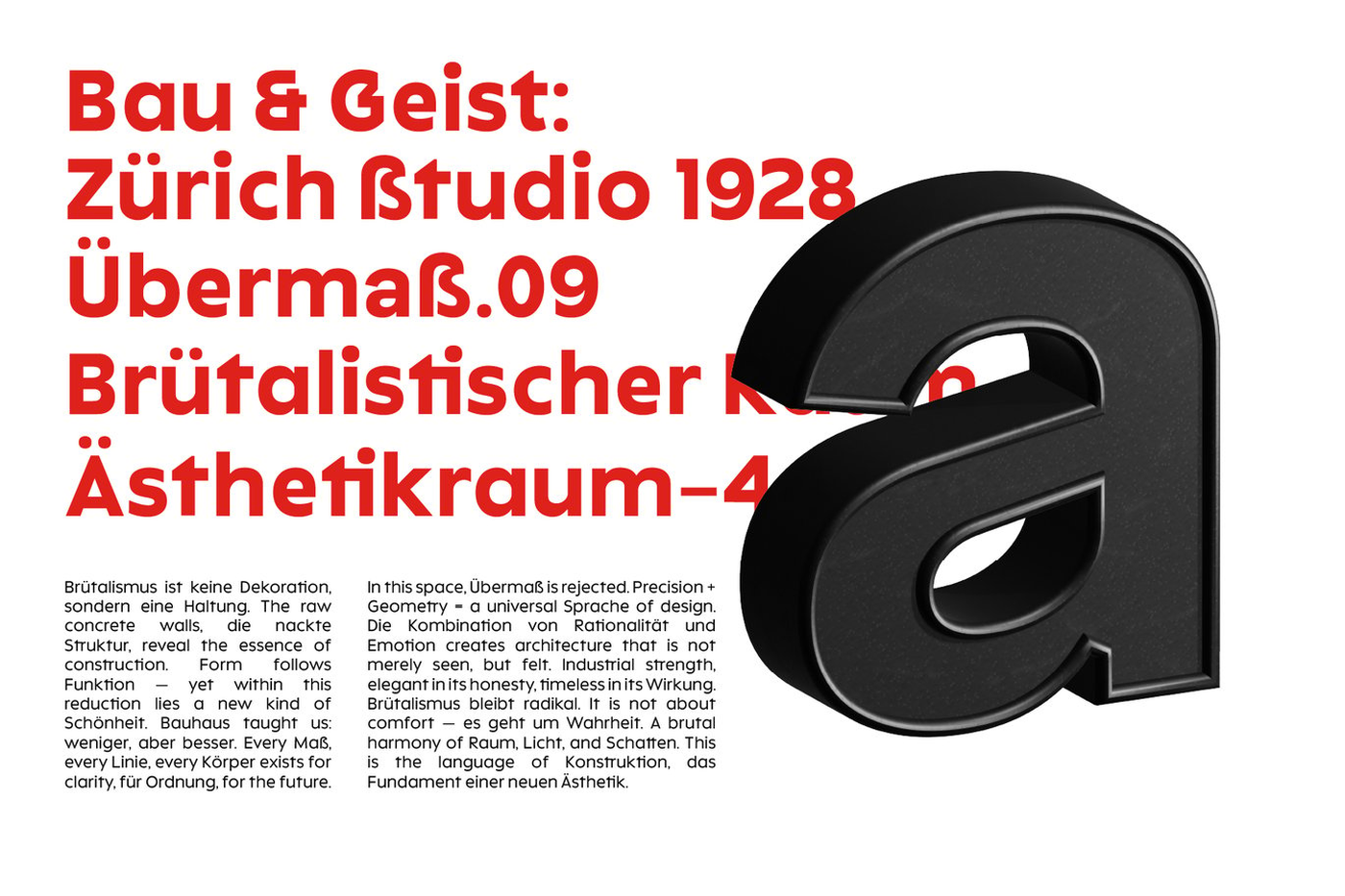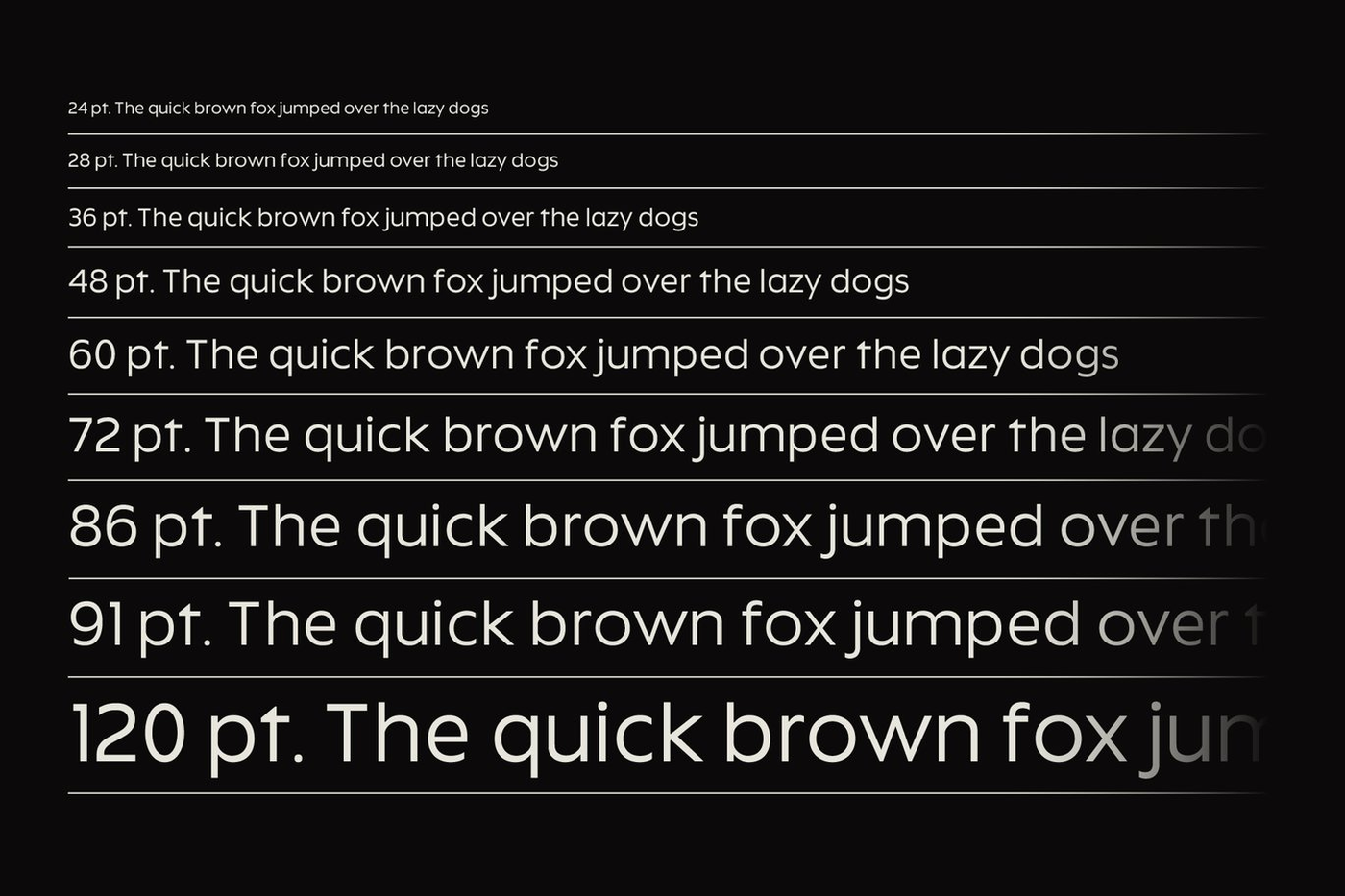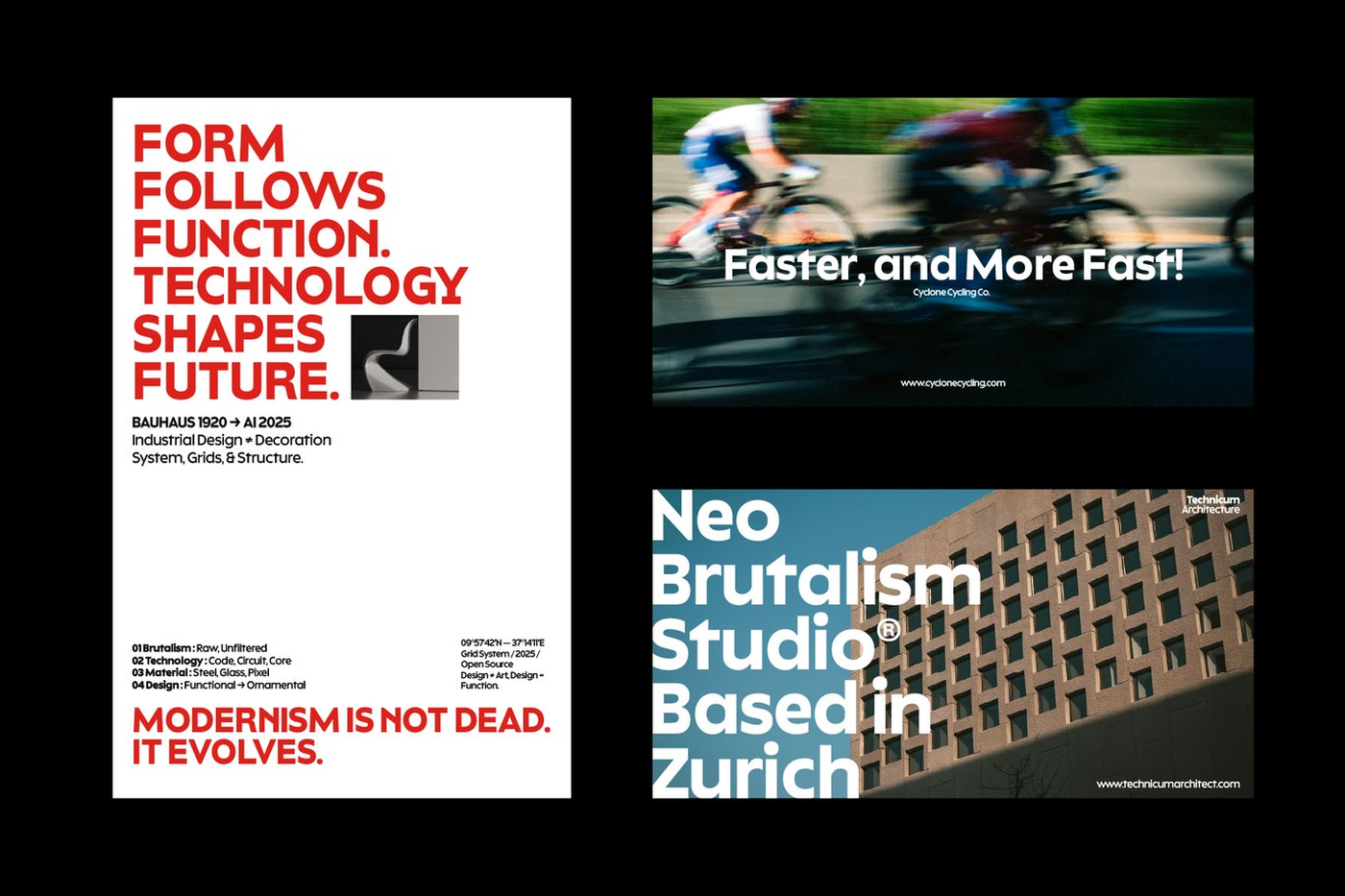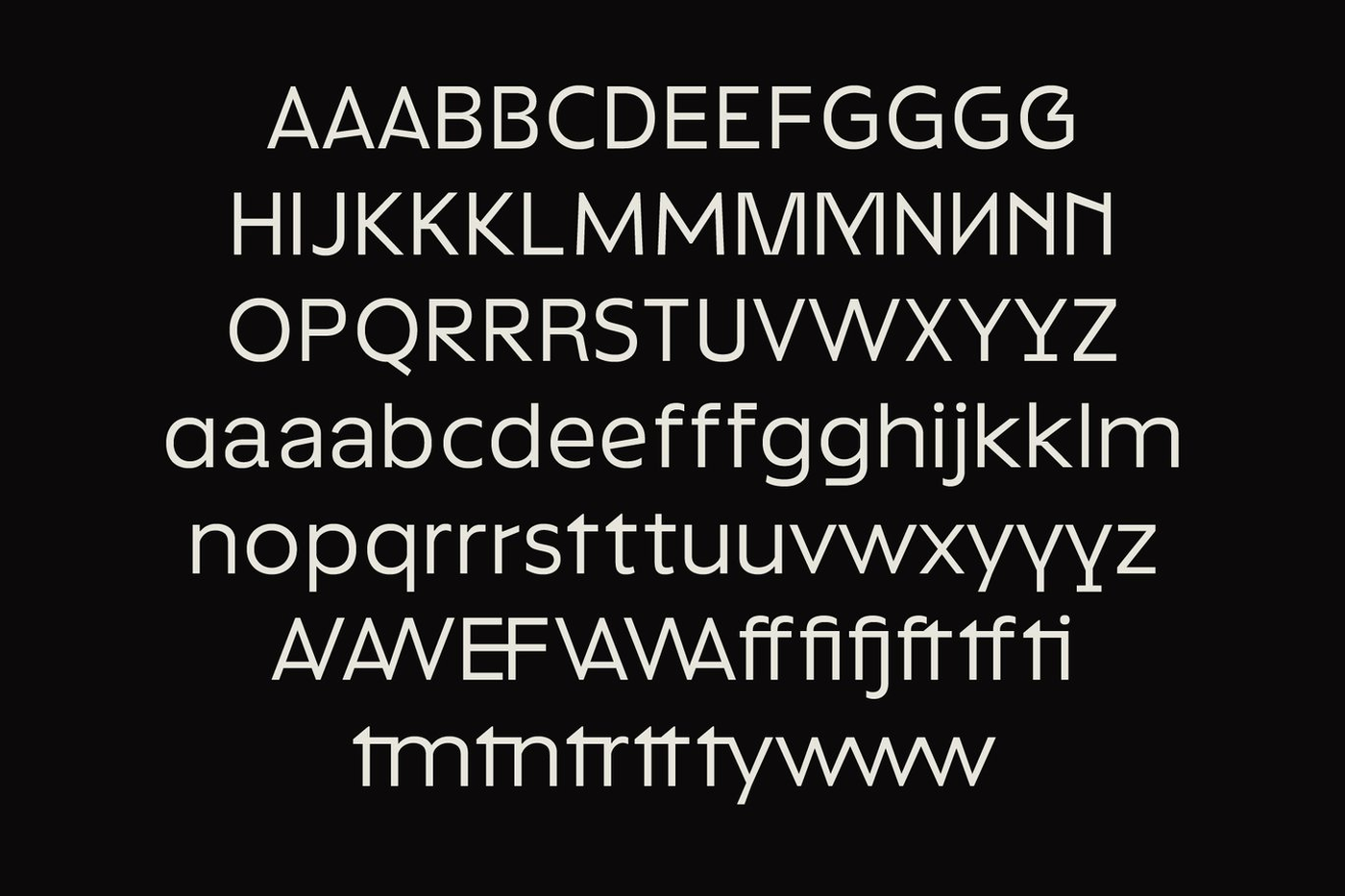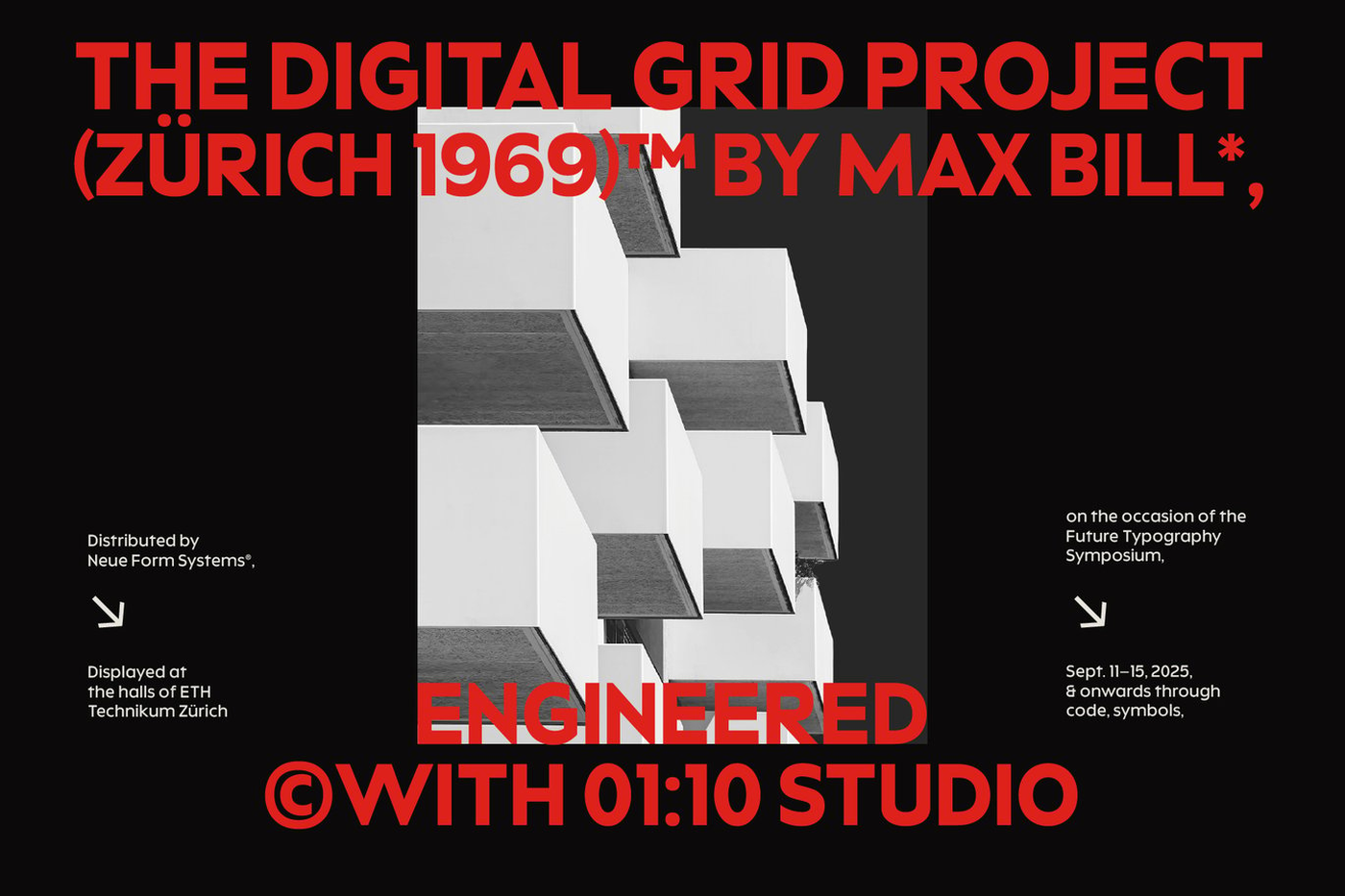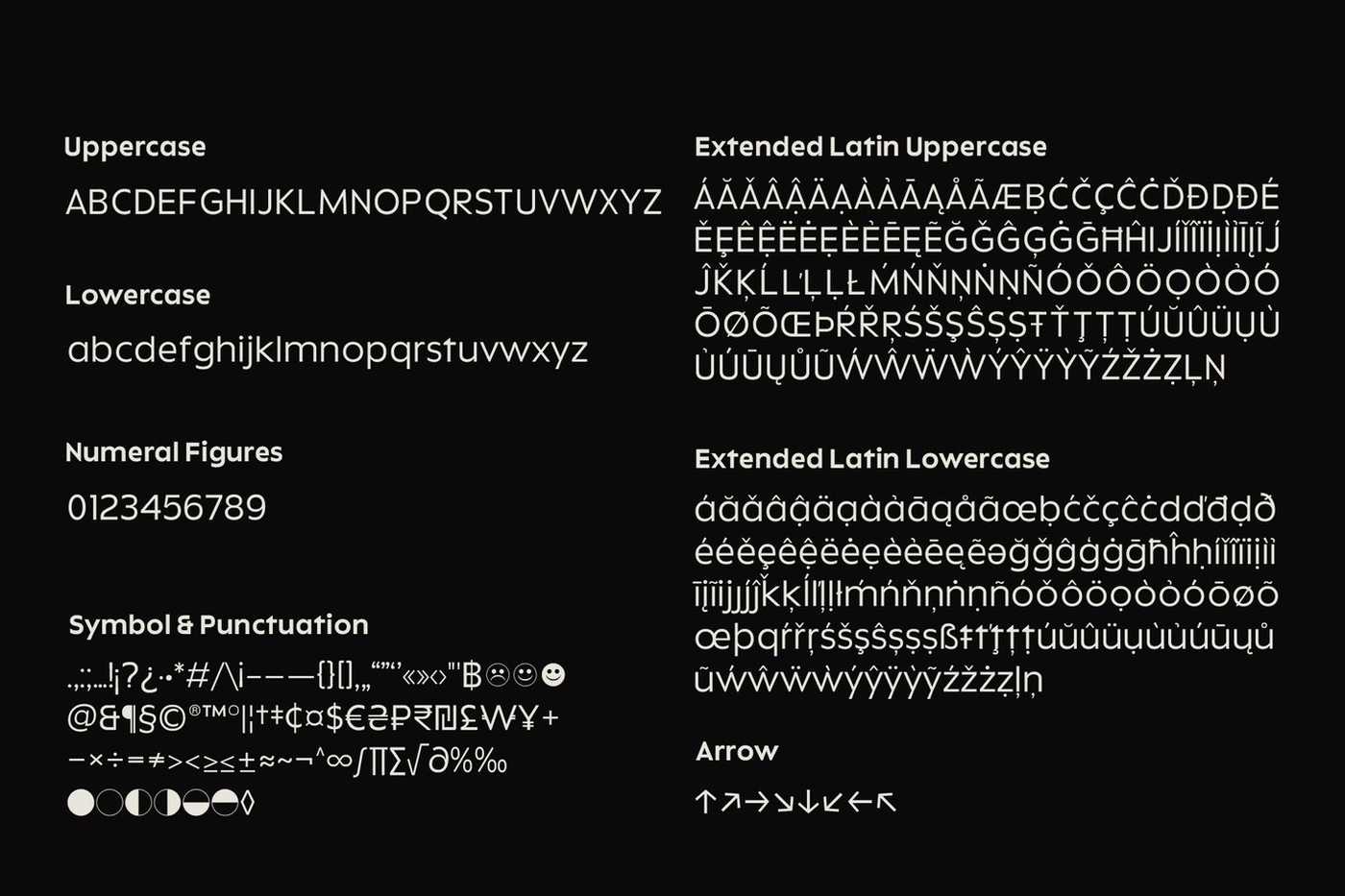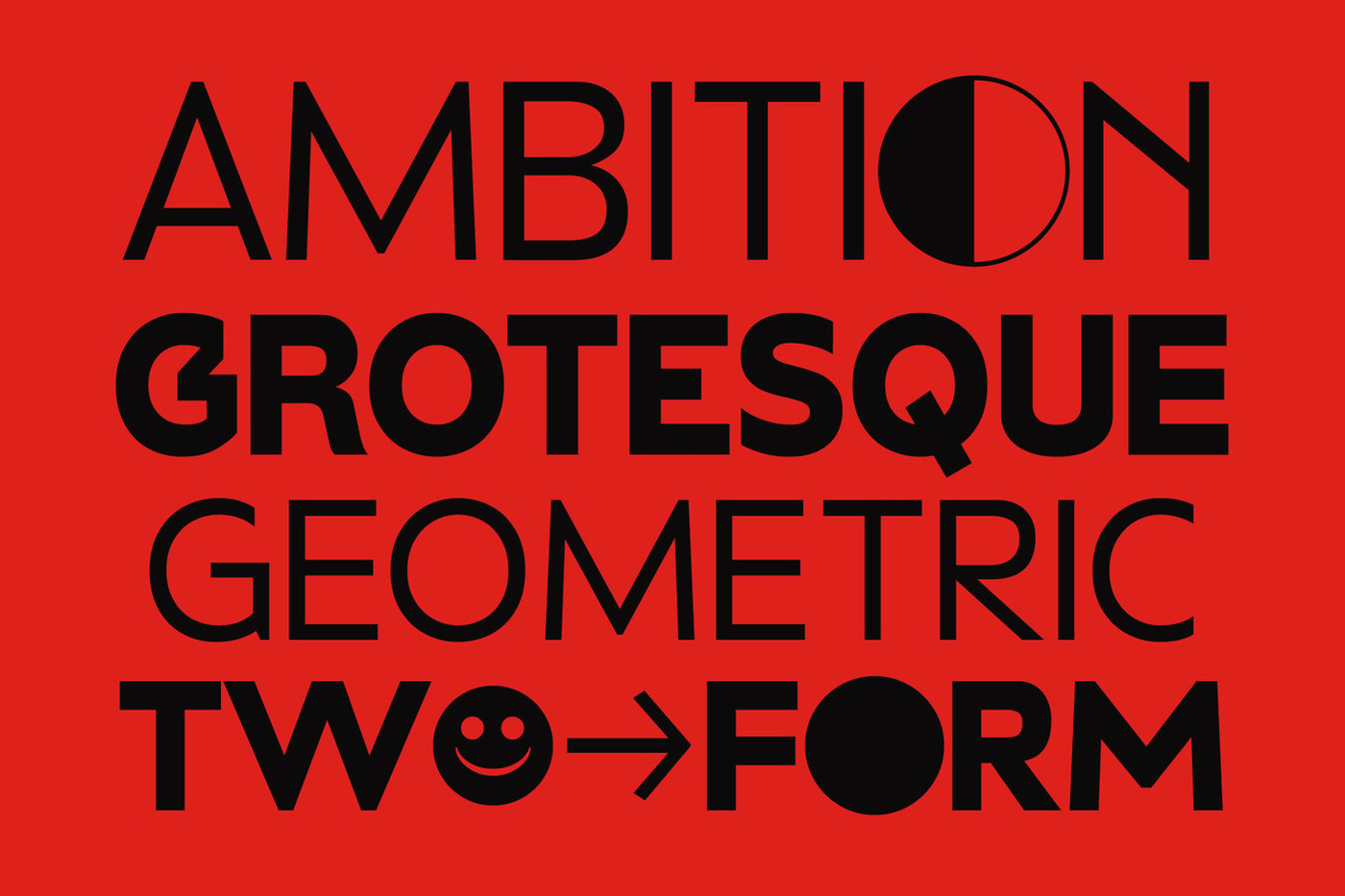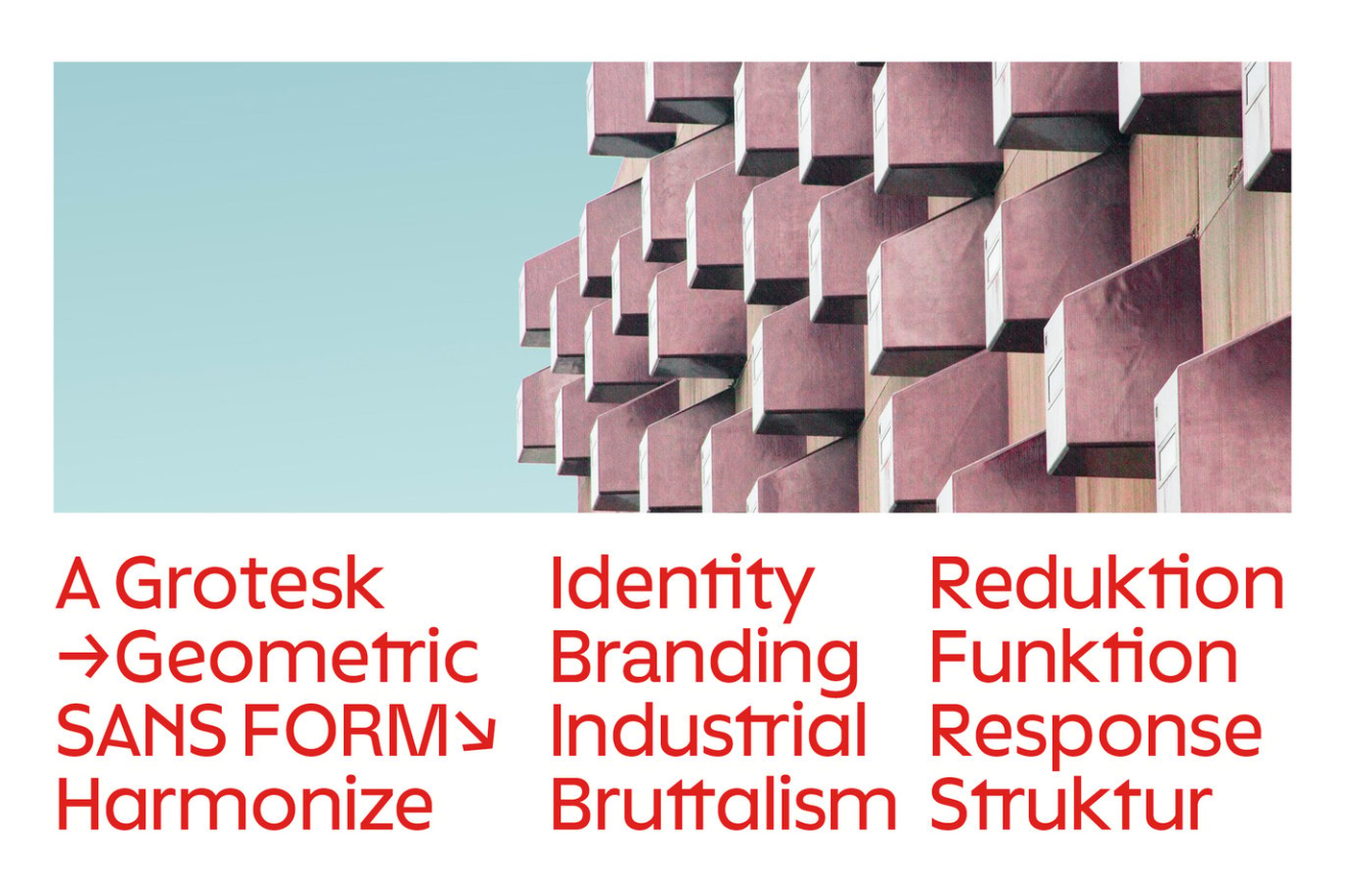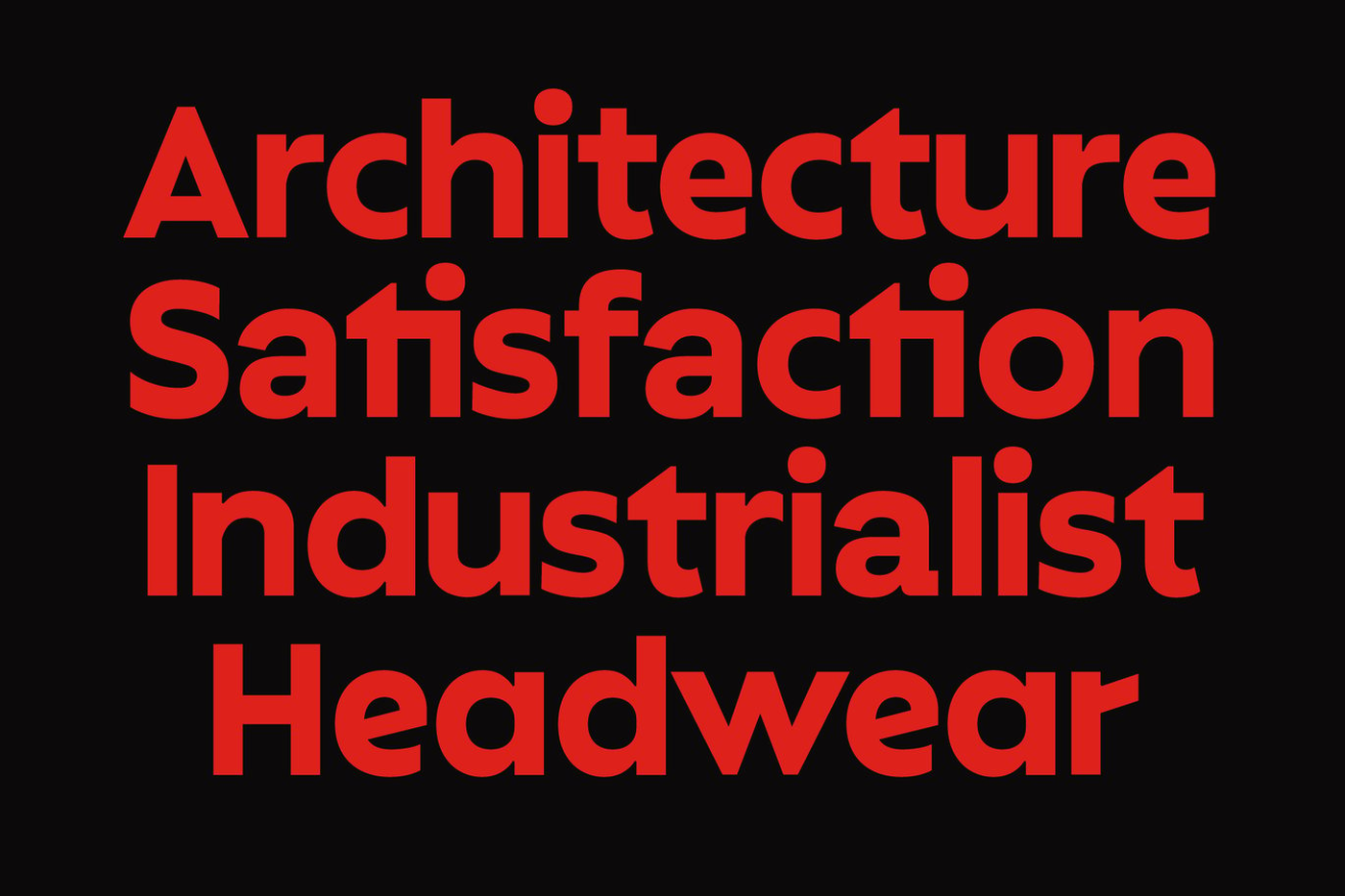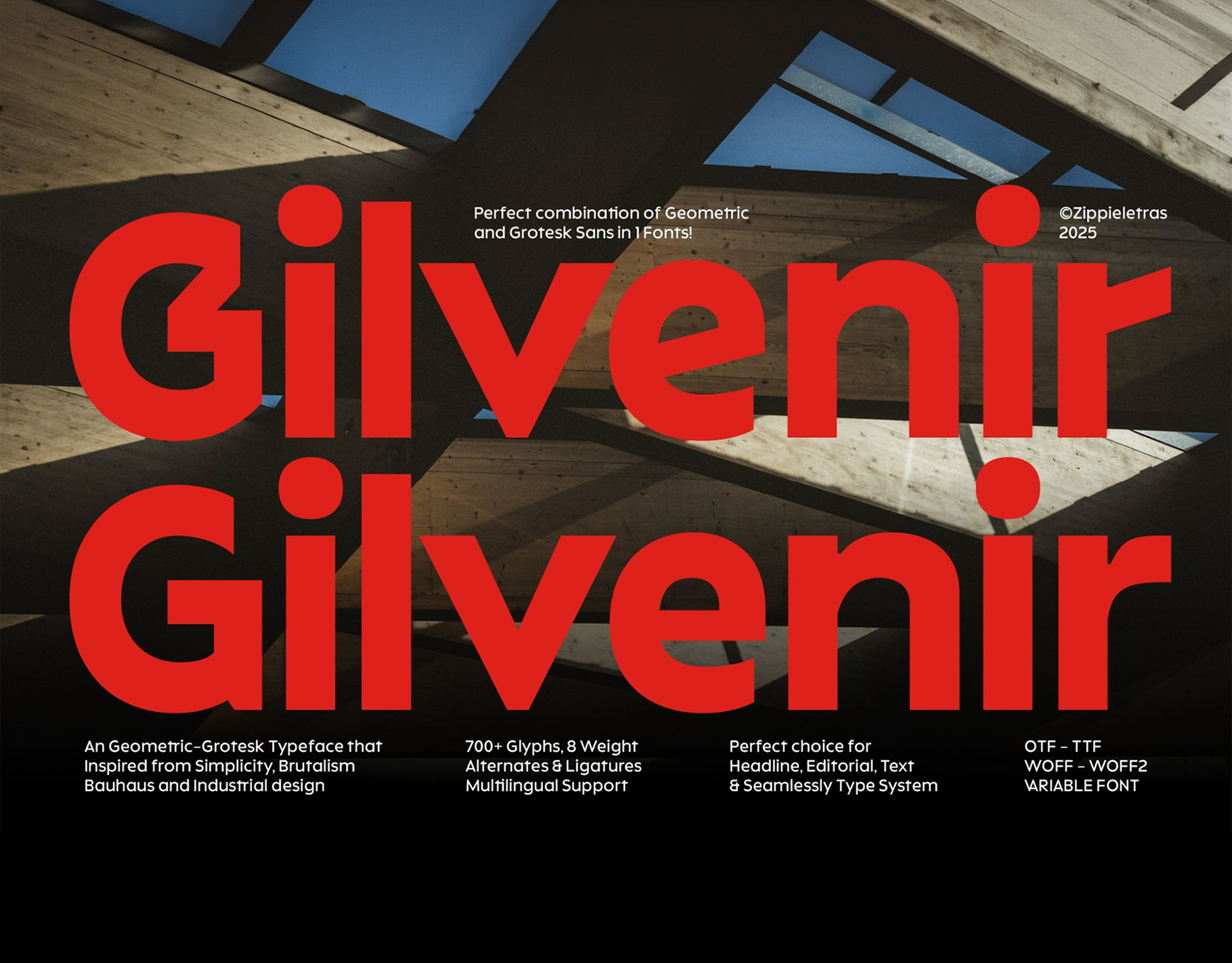
Gilvenir - Geometric Sans Serif Font
Gilvenir is a modern geometric-grotesk sans serif designed for brands that value clarity, strength, and timeless style. Inspired by the balance of Bauhaus geometry, Modern Simplicity, industrial precision, and brutalist sharpness, Gilvenir works seamlessly across display and text, making it ideal for logos, websites, signage, editorials, and Brand Identity. The most distinctive characters — G, K, M, N, R, a, t, y — carry a refined yet professional voice, while Stylistic Set 01 (SS01) transforms key letters (A, G, K, M, N, Q, R, Y, a, e, f, g, k, r, t, y) into sleek, modern alternates. Combined with smooth ligatures, these features make Gilvenir adaptable for both serious corporate applications and expressive modern campaigns.
Designer: Zippieletras
Font: Gilvenir